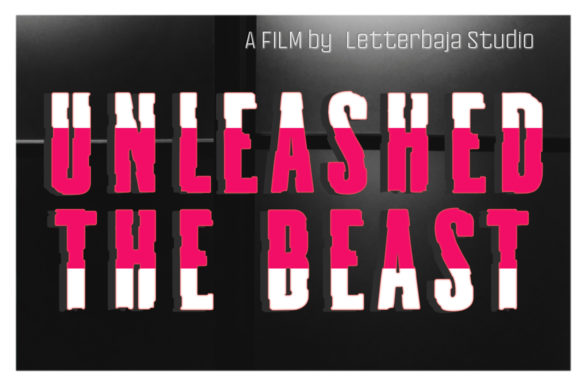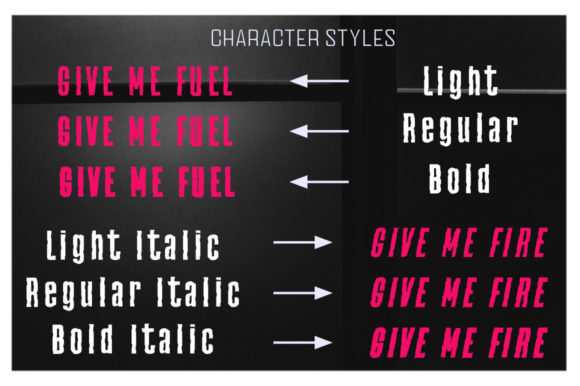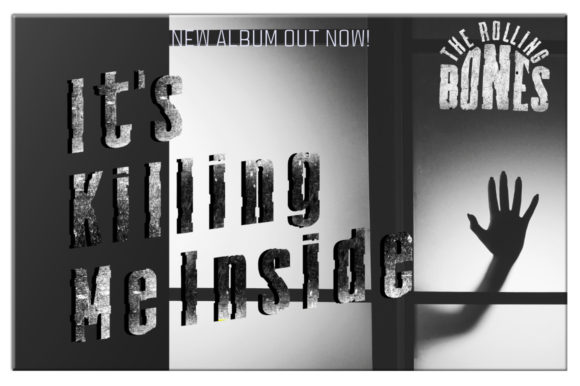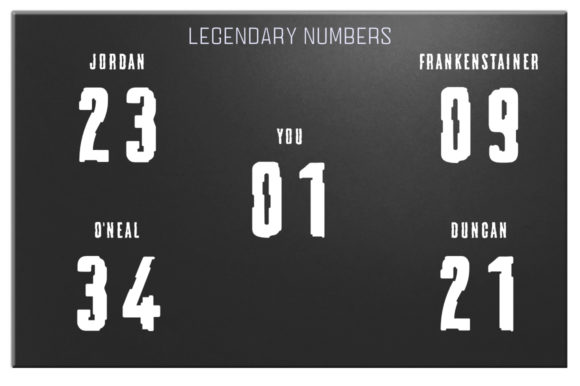
Introduction to Frankenstainer Family Font
Have you ever stared at a blank canvas, trying to spark an idea for your next creative project? The blank page can be daunting, but sometimes all it takes is the right tool to set your imagination ablaze. That’s exactly what the Frankenstainer Family Font does – it ignites a spark of creativity that can elevate your design to new heights.
As a valuable resource for designers, the Frankenstainer Family Font offers a unique blend of high-quality typography and bold, unorthodox style. With its transparent background and versatile design, this font is perfect for adding a touch of mystery to your next creative project. Whether you’re working on a free download or a high-end design, the Frankenstainer Family Font is sure to make a statement.
Key Features of Frankenstainer Family Font
- High-quality design: The Frankenstainer Family Font offers a unique blend of modern and vintage elements, making it perfect for creative projects.
- Transparent background: This font features a transparent background, allowing designers to easily overlay it on any image or design element.
- Unique characteristics: The Frankenstainer Family Font features a distinctive, hand-drawn feel with bold lines and intricate details, making it perfect for adding a touch of personality to any design project.
- Design resource: The Frankenstainer Family Font is a valuable addition to any designer’s toolkit, offering a versatile and creative solution for a wide range of design projects.
Honest Review: Frankenstainer Family Font
As a designer, I was excited to try out the Frankenstainer Family Font for my latest creative project. I was impressed by its high quality and unique aesthetic, making it a great addition to my design resource library.
One of the standout features of this font is its transparent background, allowing for seamless integration with any design element. I loved using it to create a bold, eye-catching logo for a client’s new brand identity.
- ✨ Unique and quirky design aesthetic
- ✨ High-quality font files
- ✨ Transparent background for easy design integration
Overall, I was impressed by the Frankenstainer Family Font and would definitely recommend it for creative projects that require a bold, eye-catching font. With its high-quality design and transparent background, it’s a great addition to any designer’s resource library. Plus, it’s available as a free download, making it an even more valuable resource.
The Frankenstainer Family Font is ideal for creative projects such as posters, flyers, and brochures. It’s also suitable for presentations, documents, and web design projects where a high-quality, unique font is required.